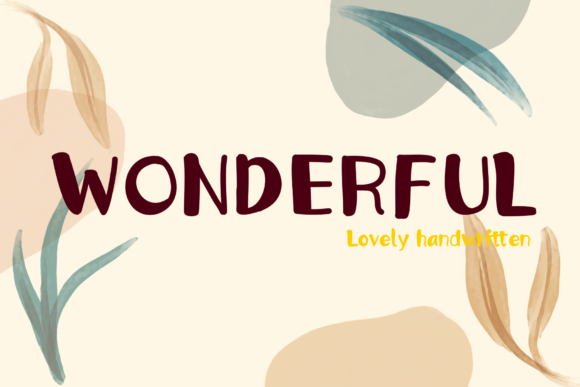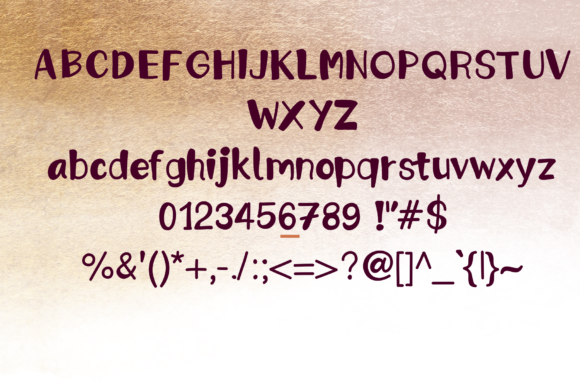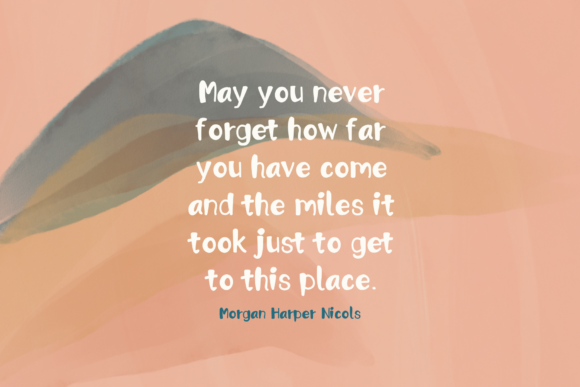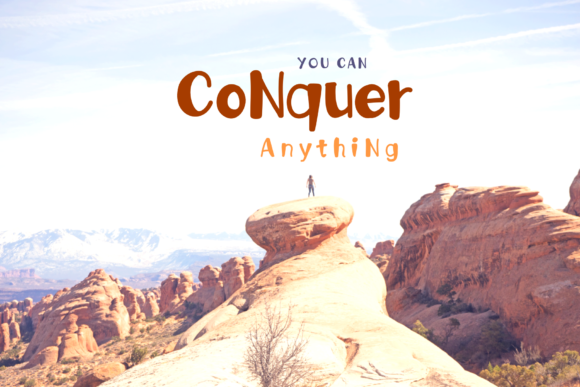
Wonderful Font
About Wonderful Font
Wonderful is a chunky charactered, sweet and friendly handwritten font. Its natural and unique style makes it incredibly fitting to a large pool of designs. The only limit is your imagination!